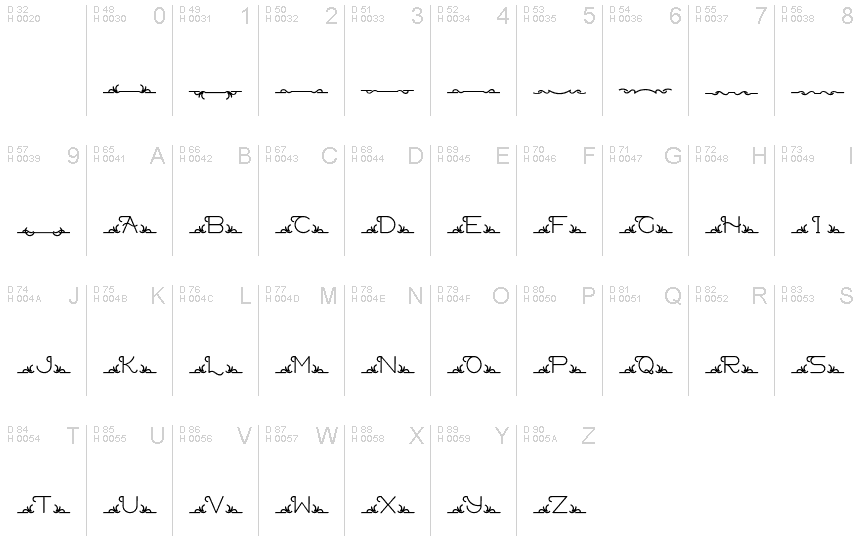
delave
Delave, the captivating display font designed by Pustudio, is a perfect choice for projects that require a touch of elegance and sophistication. Its decorative style and semi-light weight make it ideal for creating eye-catching headings, titles, and logos. The expanded width of Delave gives it an extra edge in terms of visibility and impact. This versatile font is suitable for a wide range of design projects such as branding, packaging, editorial design, and advertising. With its unique blend of style and functionality, Delave is sure to add a touch of class to any project it's used in.